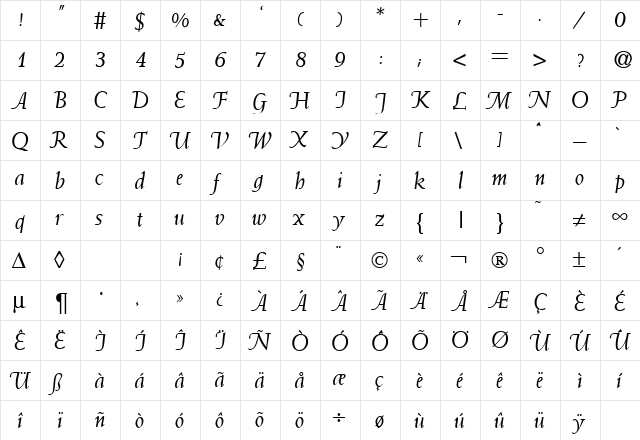
Waize DB RegularItalic
Waize DB offers clean, dependable letterforms without strong stylistic allegiance, making it a practical choice for designers who need flexibility. The slanted form adds forward momentum and visual energy.
Pro Tip: Use Waize DB for emphasis, pull quotes, and subheadings where its slanted energy can add rhythm to the layout.